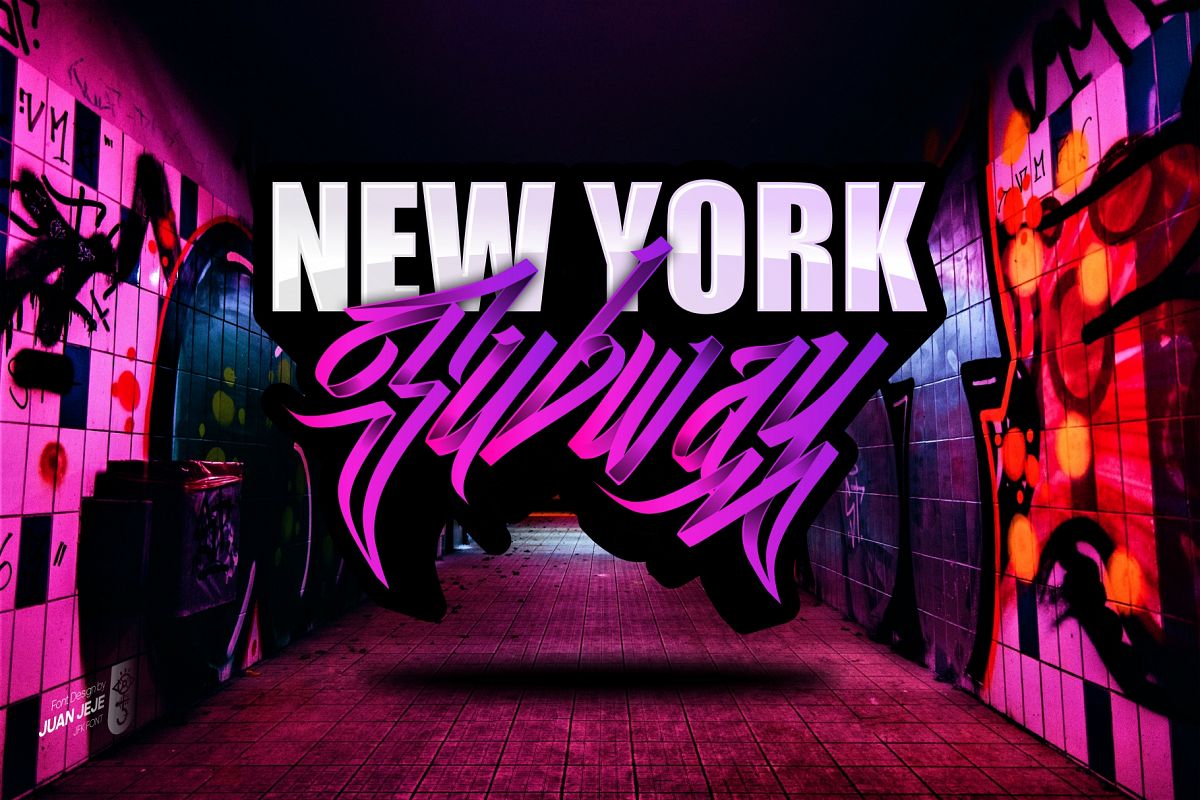
Wall Hunters
Wall Hunters Alt Low
Wall Hunter
Wall Hunter is an graffiti tag font, using digital marker in wild style of hip hop culture. dedicate and inspirated by street art artist over the world.